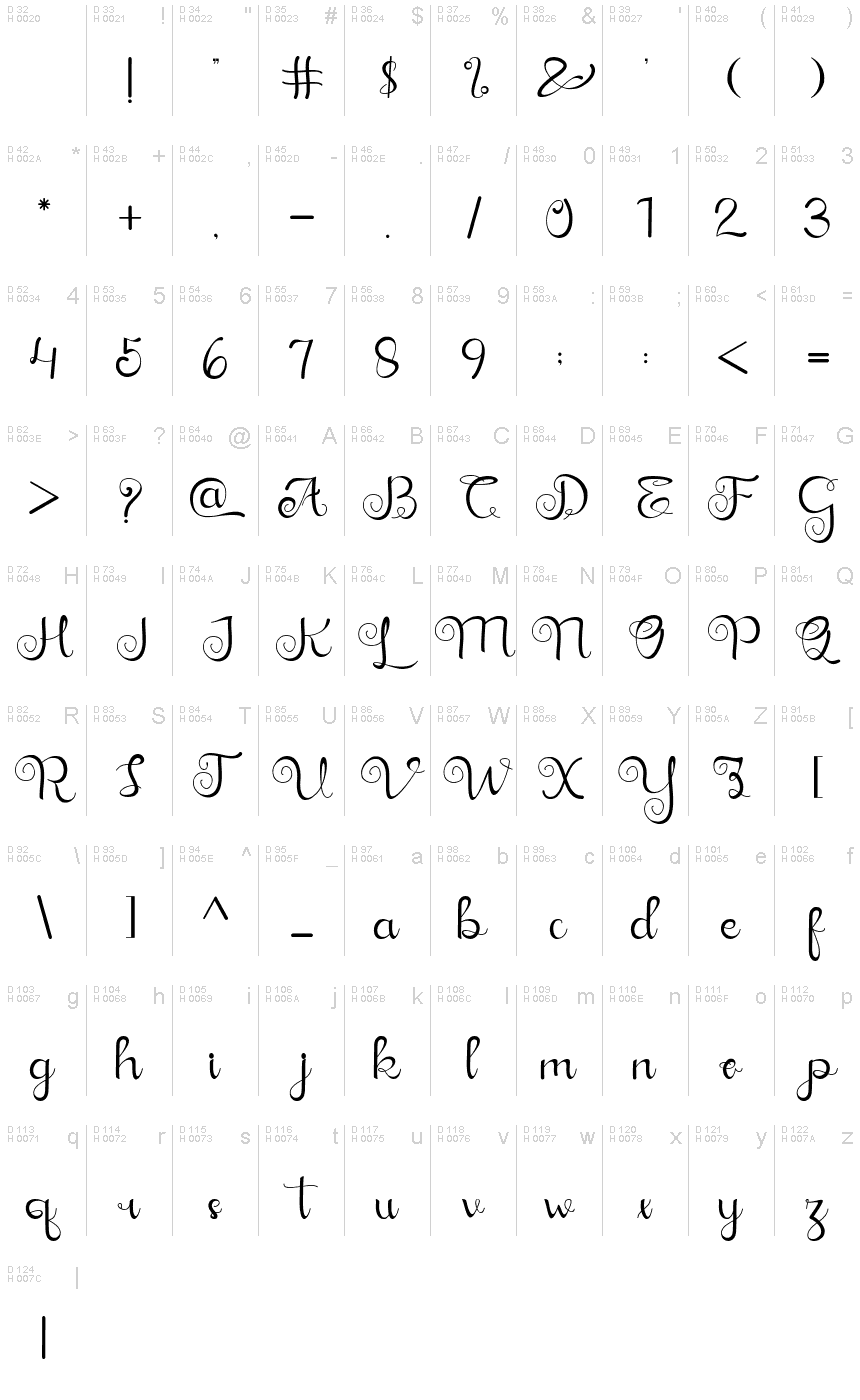
Arinda
Arinda is the perfect semi-light calligraphy typeface for your elegant branding projects. Its semi-expanded width gives the font an airy and sophisticated feel, making it suitable for wedding invitations, luxury fashion magazines, and high-end beauty brands. With its flowing strokes and graceful curves, Arinda adds a touch of refinement to any design project. Whether you're creating a logo or designing a product packaging, Arinda will elevate your brand to new heights. Get Studio has truly outdone themselves with this versatile and beautiful font that will leave a lasting impression on your audience.